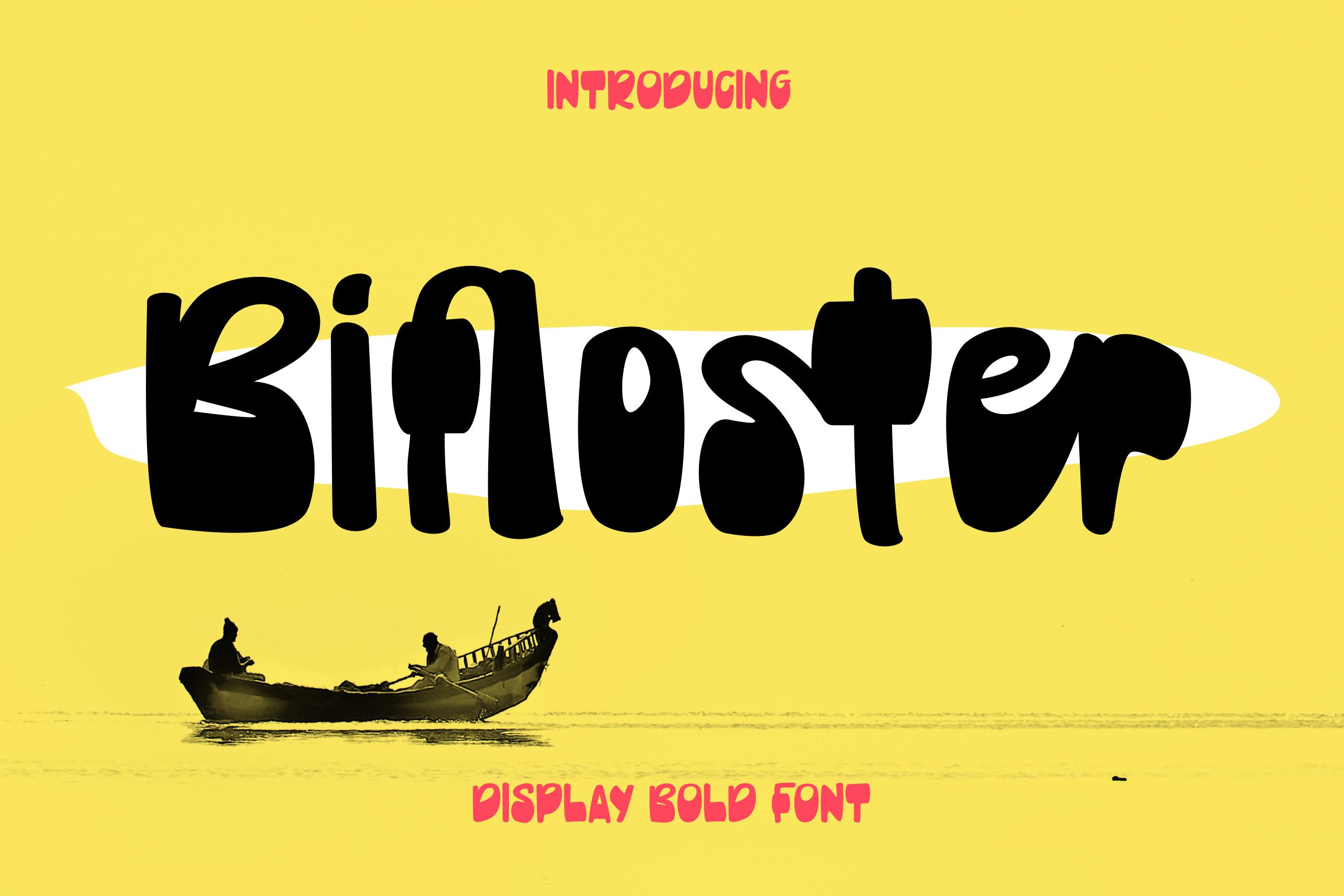
Bifloster - Display Bold Font
Bifloster - Display Bold Font, So beautiful on invitations like greeting cards, branding materials, business cards, quotes, posters, and more!
- Alternates and Ligatures